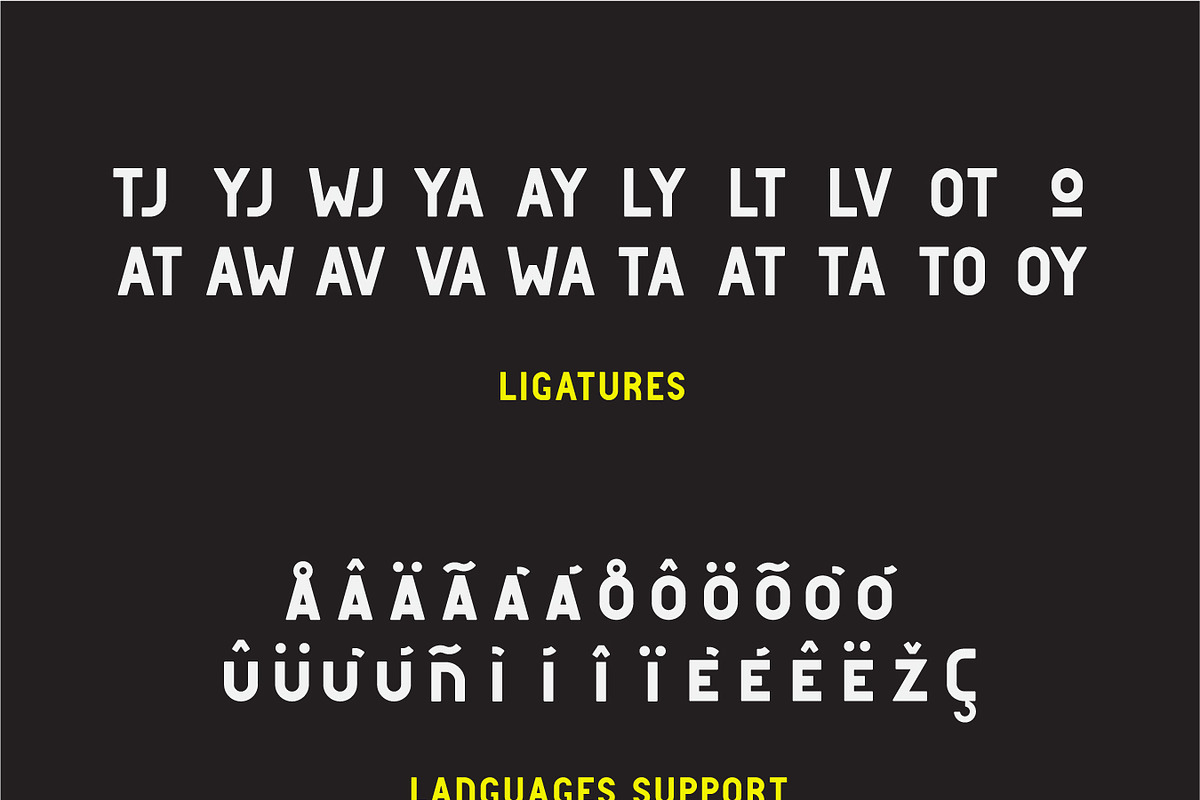
Dakar
Dakar is a sans serif uppercase font with Italic and Halftone styles. It's gorgeous for brands. The rounded angles is perfect for giving readability and strength to your artwork. The width ligatures provide to the perfect kerning.
Enjoy it for your next brand.
- Brand Monster
- Punctuations and Alternatives
- +170 Glyphs
- Regular, Italic & Halftone